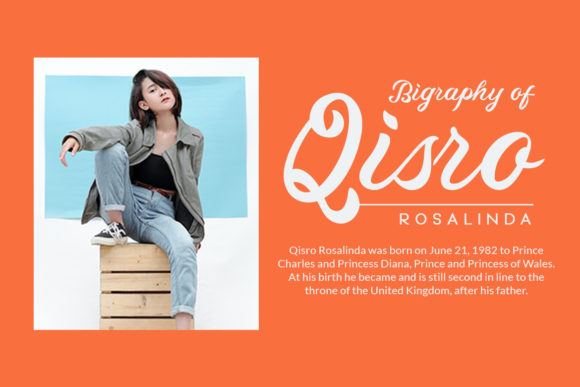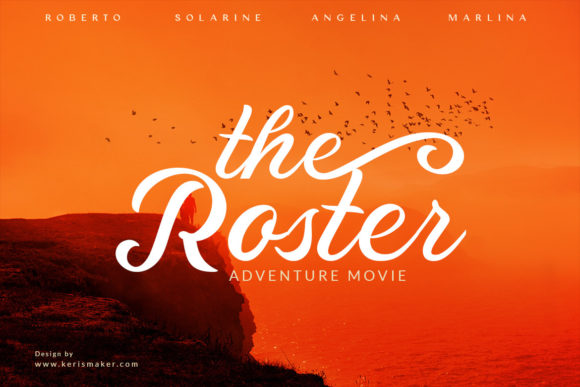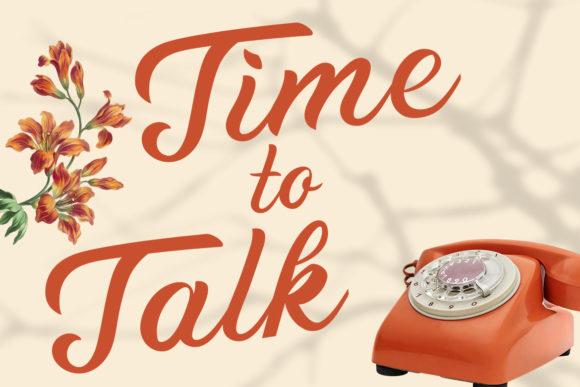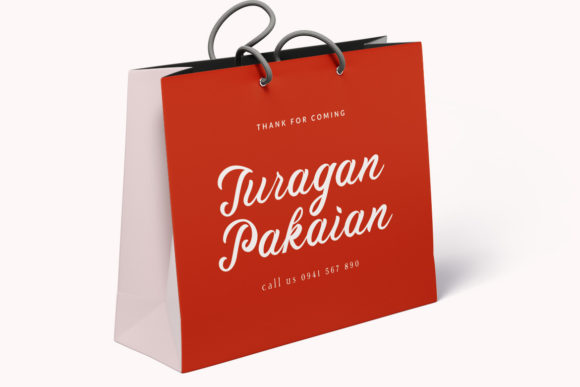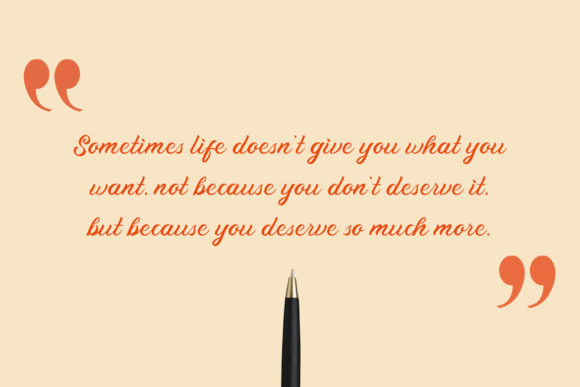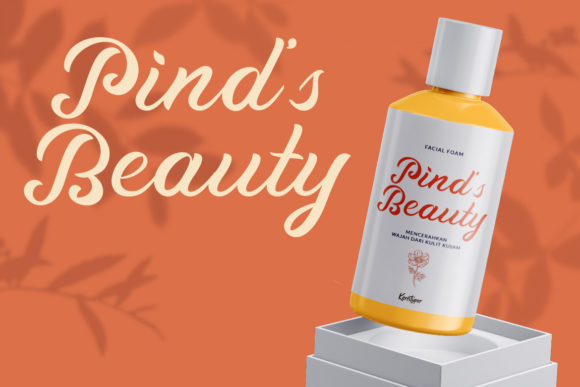
Introduction to Polthena Font
Polthena is a gorgeous, refined script font.
Its subtle shapes make this font suitable for all of your projects Fall in love with its incredibly versatile style and use it to create spectacular designs.
Key Features of Polthena Font
Why Choose Polthena Font?